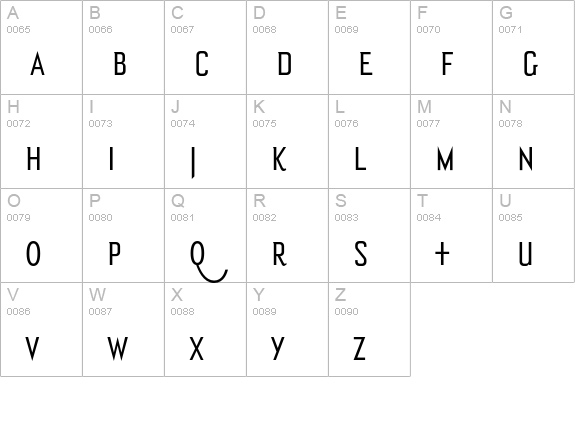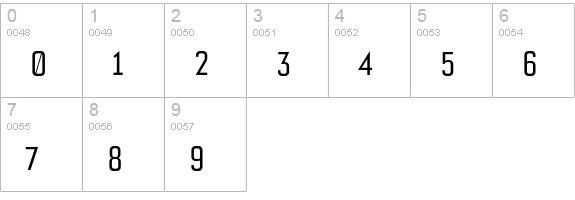
Bourgeois MedCondAlt Font Details
Introducing Bourgeois MedCondAlt font, a timeless and sophisticated typeface that exudes elegance and refinement. With its sleek and stylish design, Bourgeois MedCondAlt is perfect for adding a touch of class to any project. This versatile font is ideal for a wide range of applications, from luxury branding to editorial design. Bourgeois MedCondAlt font features a condensed style with medium weight, making it perfect for creating sleek and modern layouts. Its clean lines and classic proportions give it a timeless appeal that will never go out of style. Whether you are designing a logo, website, or print materials, Bourgeois MedCondAlt font is sure to make a lasting impression. Best of all, Bourgeois MedCondAlt font is available for free download at FontsMarket.com. Now you can add this sophisticated typeface to your collection without breaking the bank. Don't miss out on the opportunity to elevate your design projects with Bourgeois MedCondAlt font – download it for free today!